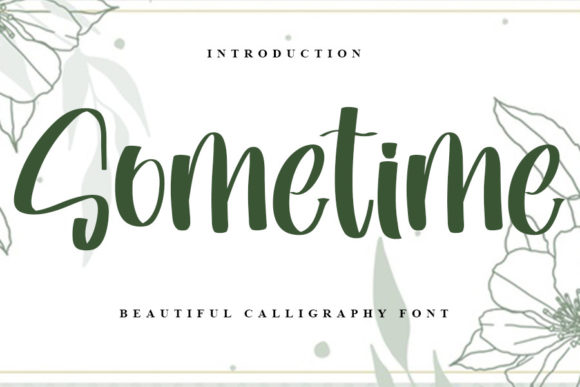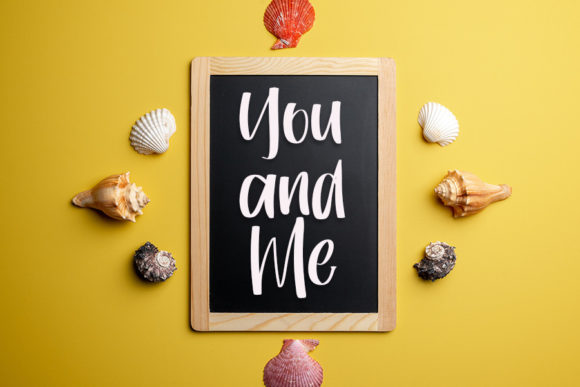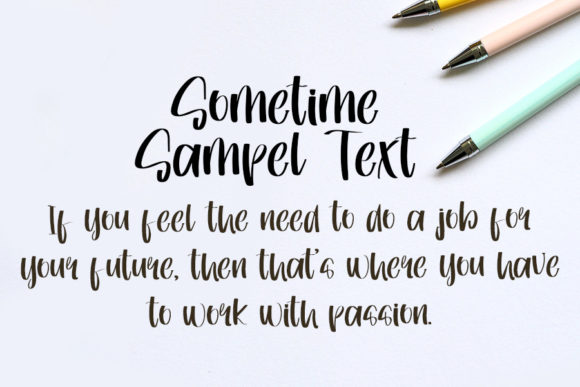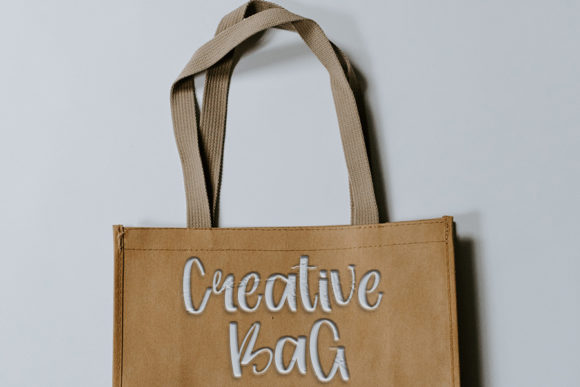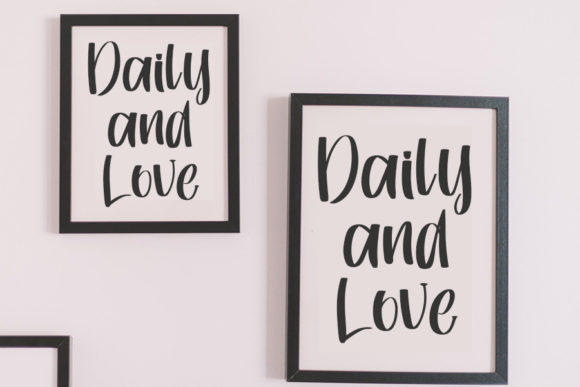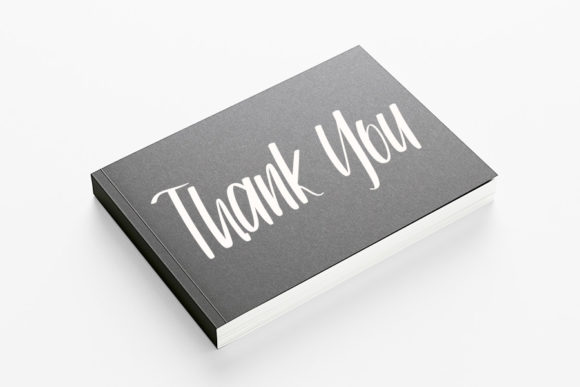
Sometime Font
About Sometime Font
Sometime is a stunning script font that combines beauty and boldness in a harmonious way. With its elegant and confident letterforms, this font exudes a sense of elegance and class.
Crafted with attention to detail, Sometime is specifically designed to bring a beautiful and refreshing look to your designs. Its bold and assertive strokes make a strong visual impact, while maintaining a graceful and refined appearance.
Whether you’re designing logos, branding materials, packaging, or any other project that requires a distinctive look, Sometime is the perfect choice. Its versatile style and timeless appeal make it well-suited for a variety of designs.
The boldness of Sometime allows it to command attention and make a statement. The strong and confident letterforms create a sense of power and sophistication, while still maintaining a touch of elegance.
The legibility and clarity of Sometime make it suitable for both headline and body text usage. The well-balanced letterforms ensure that each character is visually appealing and easy to read.
With its beautiful and bold script, Sometime adds a touch of sophistication and style to your designs. The flowing and expressive letterforms create a visually pleasing and dynamic composition.
Whether you’re creating bold headlines, striking logos, or eye-catching typography, Sometime delivers with its beautiful and impactful style.
In summary, Sometime is a beautiful and bold script font that exudes elegance and class. Crafted with attention to detail, it brings a refreshing look to your designs and adds a touch of sophistication. Embrace the beauty and boldness of Sometime and elevate your projects with its elegant and powerful style.